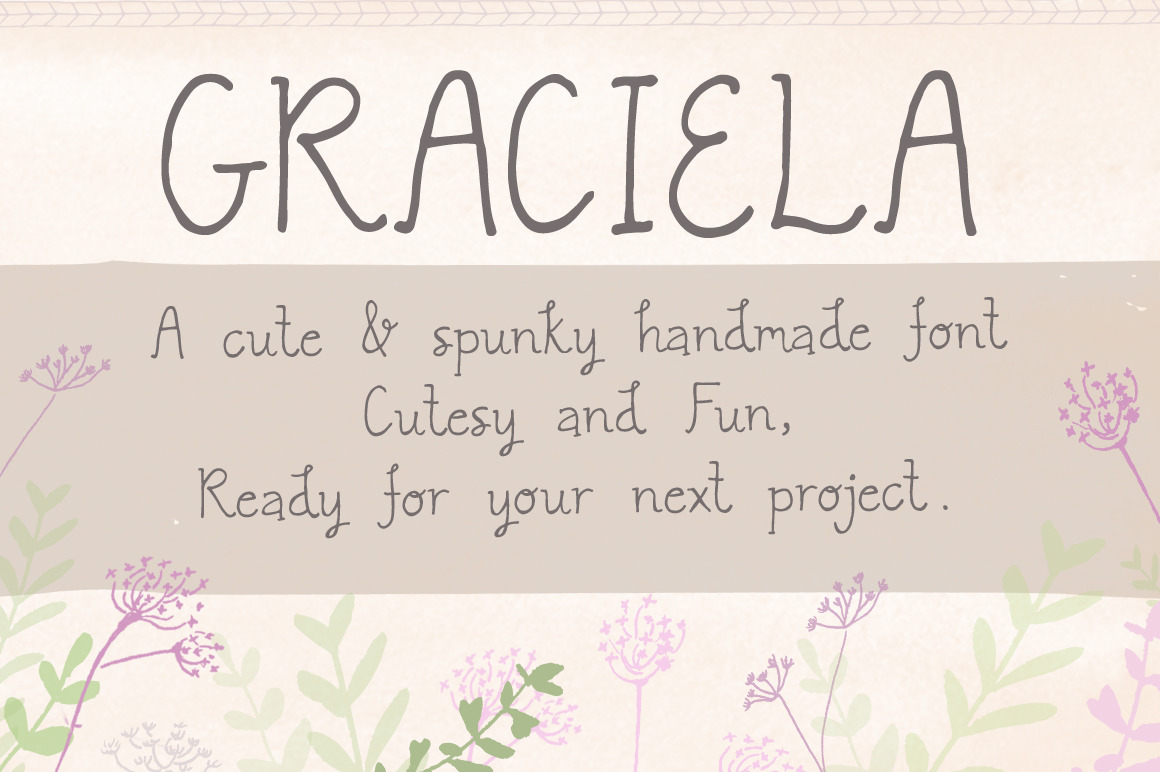
Graciela Font
Graciela is a spunky handdrawn font with enough "cute" to last a lifetime. Works great in titles and text that needs to draw attention to itself. Just might be a fit for your next project!